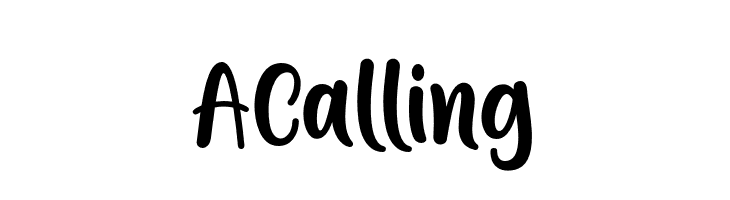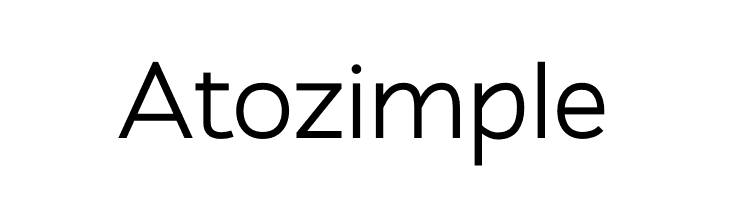
An elegant script font with flowing, interconnected letters and a sophisticated style.
A futuristic, geometric font with rounded edges and a sleek, modern design.
A playful, rounded font with bold, smooth curves.
A modern, geometric font with rounded edges and a clean, streamlined appearance.
A bold, high-contrast font with elegant curves and sharp angles.
An elegant and ornate script font with flowing, intricate letterforms.
A playful and whimsical script font with bold, flowing curves and decorative flourishes.
A sophisticated script font with flowing, cursive letterforms.
A bold, expressive handwritten font with dynamic strokes.
A bold, geometric sans-serif font with a modern and futuristic style.